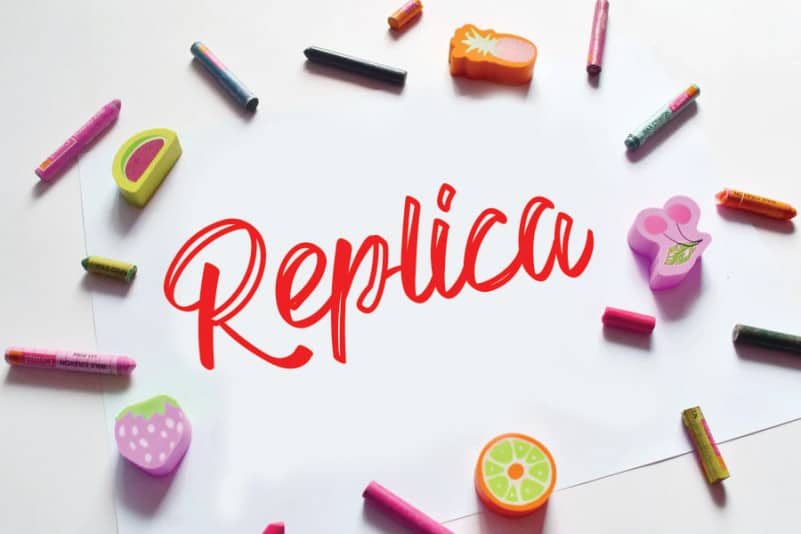
Replica Script Font
Replica Script Font is an exquisite handwritten font, masterfully designed to become a true favorite. It maintains its classy calligraphic influences while feeling contemporary and fresh. Fall in love with it and bring your projects to the highest levels!
the latest style letters are perfect for wall displays, wedding invitations, social media post logos,
advertisements, product packaging, product designs, labels, photography, watermarks, invitations, stationery,
and any project that requires taste handwriting.